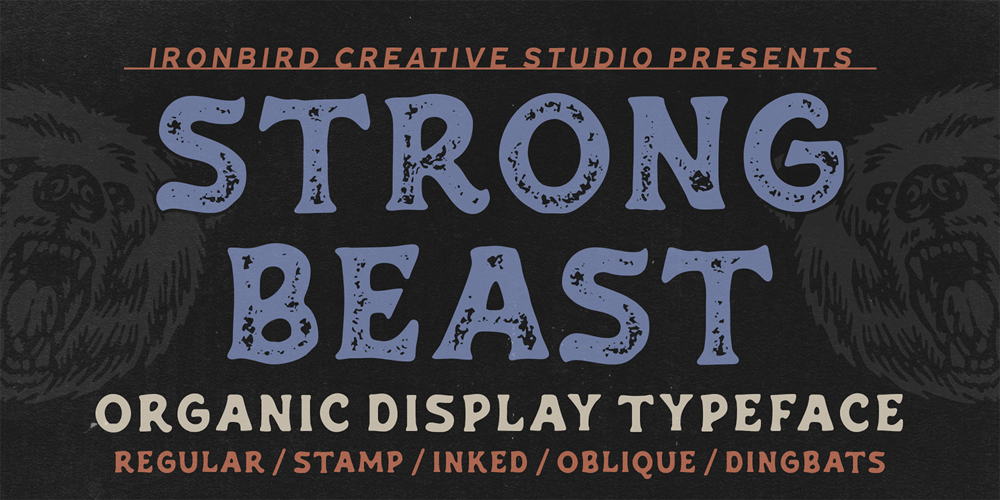
Strong Beast Font Family was designed by Septianto Nugroho and published by Ironbird Creative. Strong Beast contains 7 styles and family package options. Strong Beast is a BOLD AND STRONG ALL CAPS organic hand-drawn typeface. This item consists of 7 FONTS in various styles which you can play around with it.NOTE : Please Check the Help File first and for all the characters are also available, accessible in the Adobe Illustrator Glyphs Panel, or in Adobe Photoshop Character Open Type Panel.We hope you enjoy the font, please feel free to comment if you have any thoughts or feedback. Thanks for purchasing and have fun!Regards,Ironbird Creative